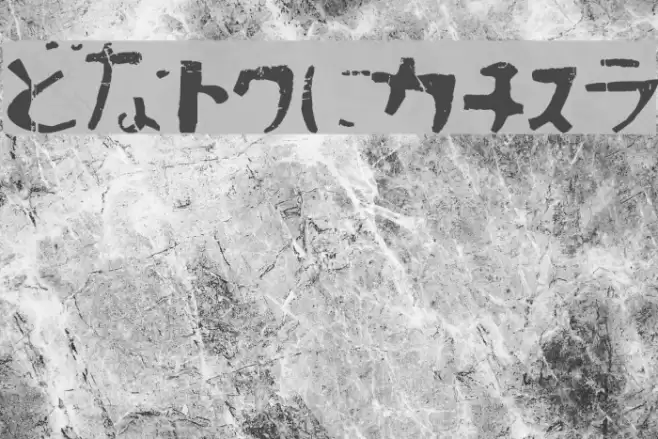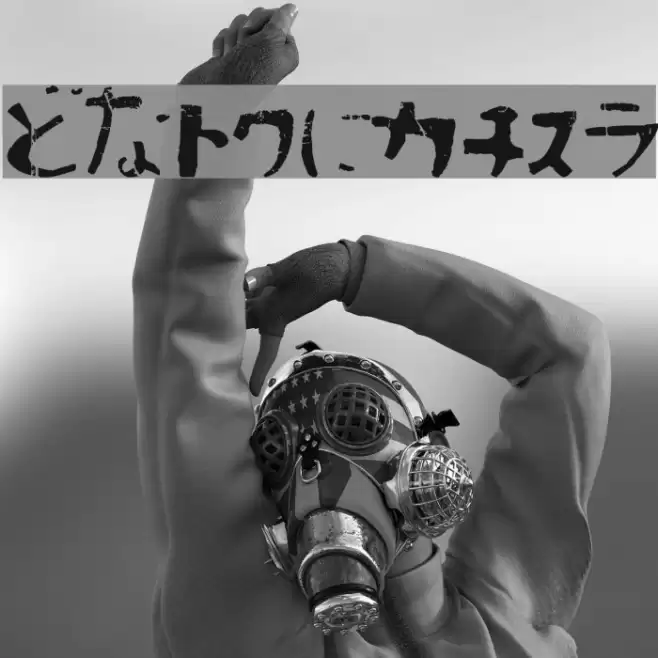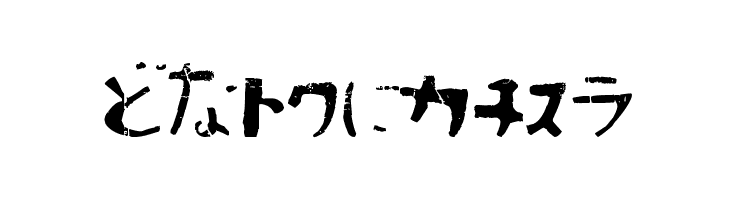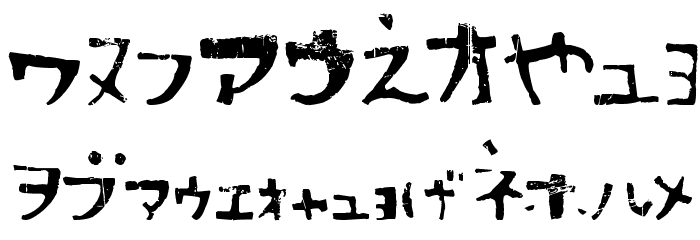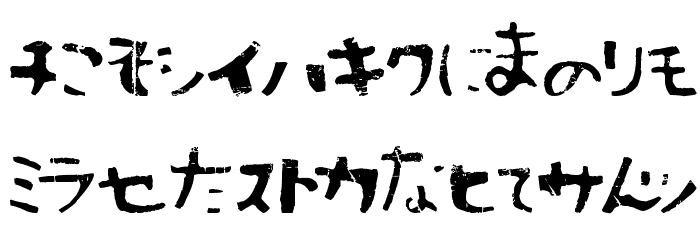
Sushitaro Font
Sushitaro Description
This font features a bold and distressed style, reminiscent of traditional Japanese calligraphy with a modern twist. The characters are unevenly textured, giving them a hand-painted appearance that adds a sense of authenticity and artistic flair. The strokes are thick and irregular, creating a dynamic and energetic feel. This font captures the essence of rustic and organic design, making it suitable for projects that require a touch of cultural or historical depth. The overall aesthetic is both striking and memorable, perfect for making a bold statement.
A bold, distressed font with a hand-painted, calligraphic style from Handwritten fonts.
- Proposed Projects: Ideal for cultural posters, artistic branding, and unique packaging designs.
- Overall Style: Rustic, Artistic